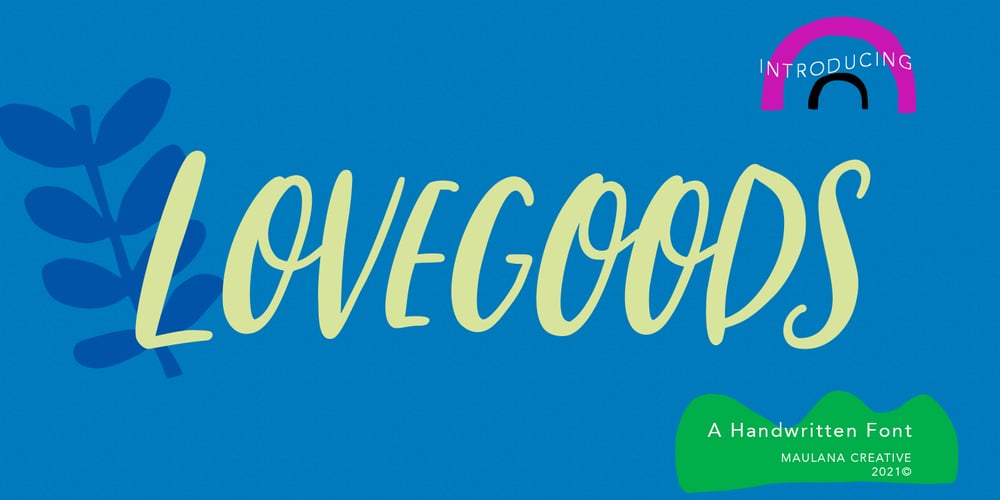
Lovesgoods Font Family was designed by Gilang Maulana and published by Maulana Creative. Lovesgoods contains 1 styles and family package options. Lovesgoods is casual handwritten font, with bold stroke, slanted and fun character. It has Opentype features ligatures of character, To give you an extra creative work. Lovesgoods font support multilingual more than 100+ language. This font is good for logo design, Social media, Movie Titles, Books Titles, a short text even a long text letter and good for your secondary text font with sans or serif. Make a stunning work with Lovesgoods font.